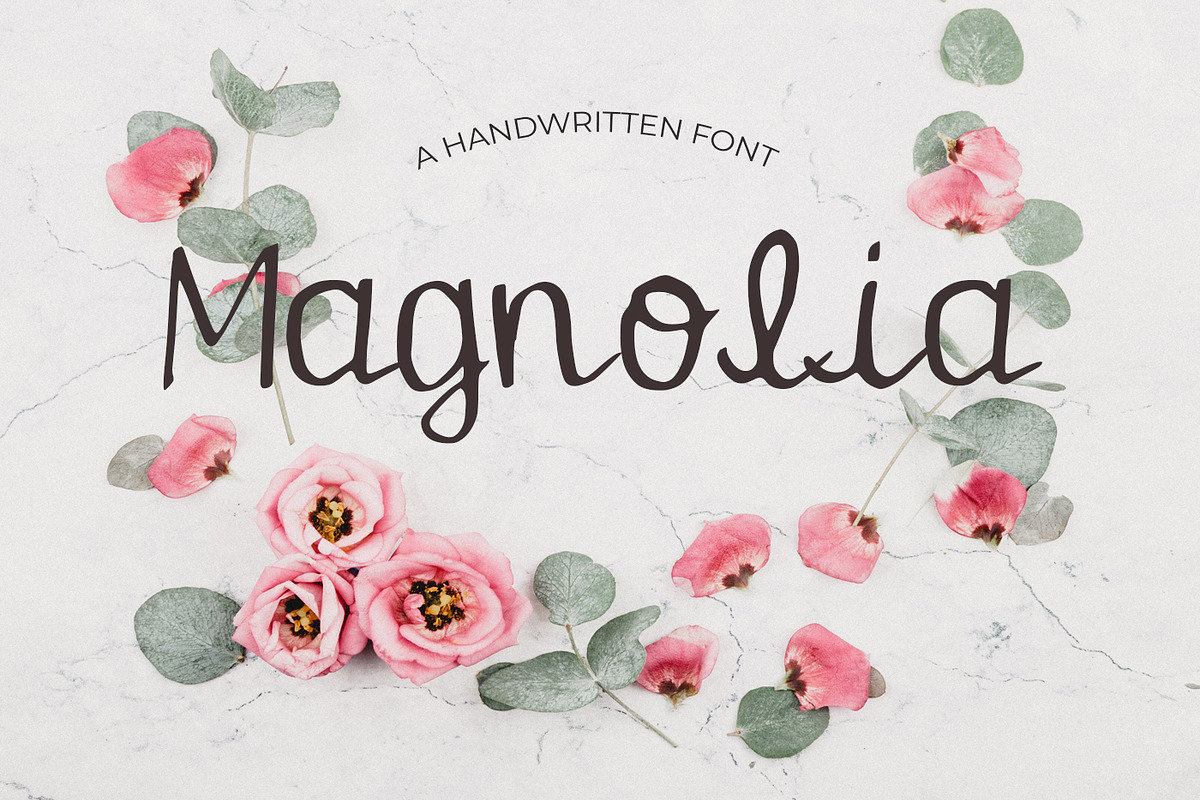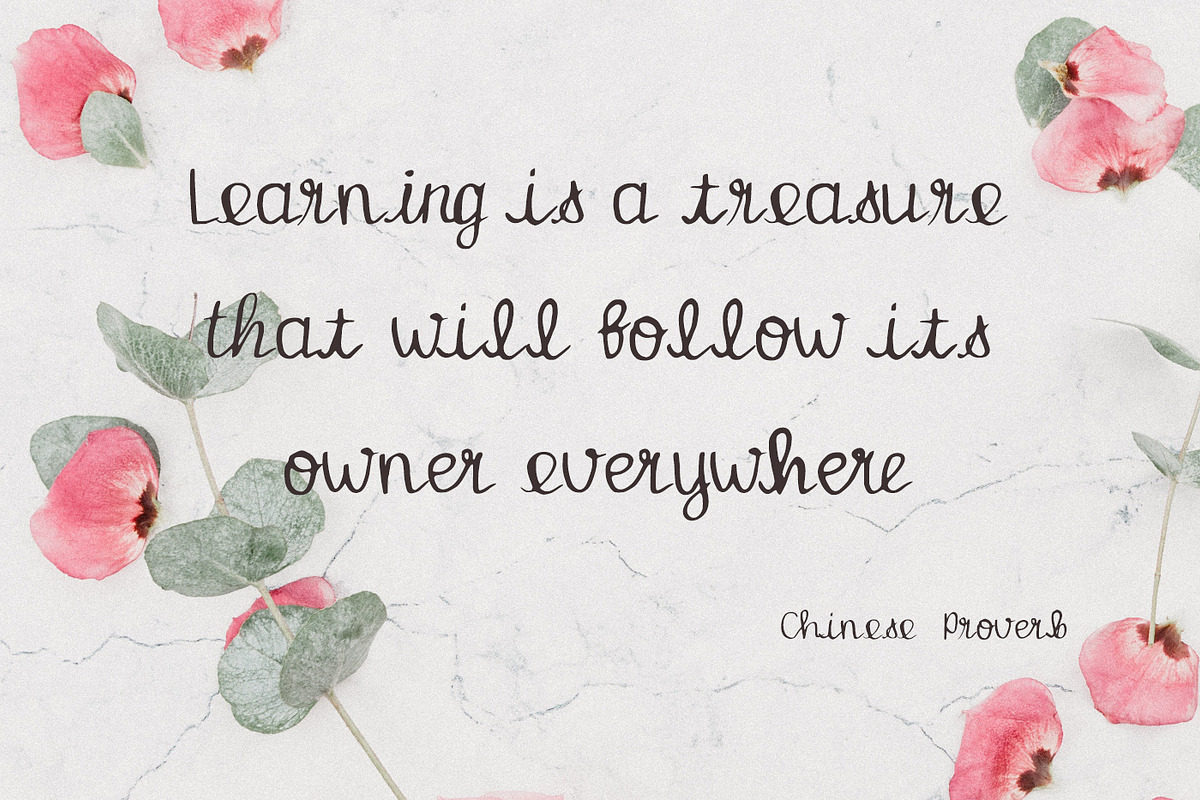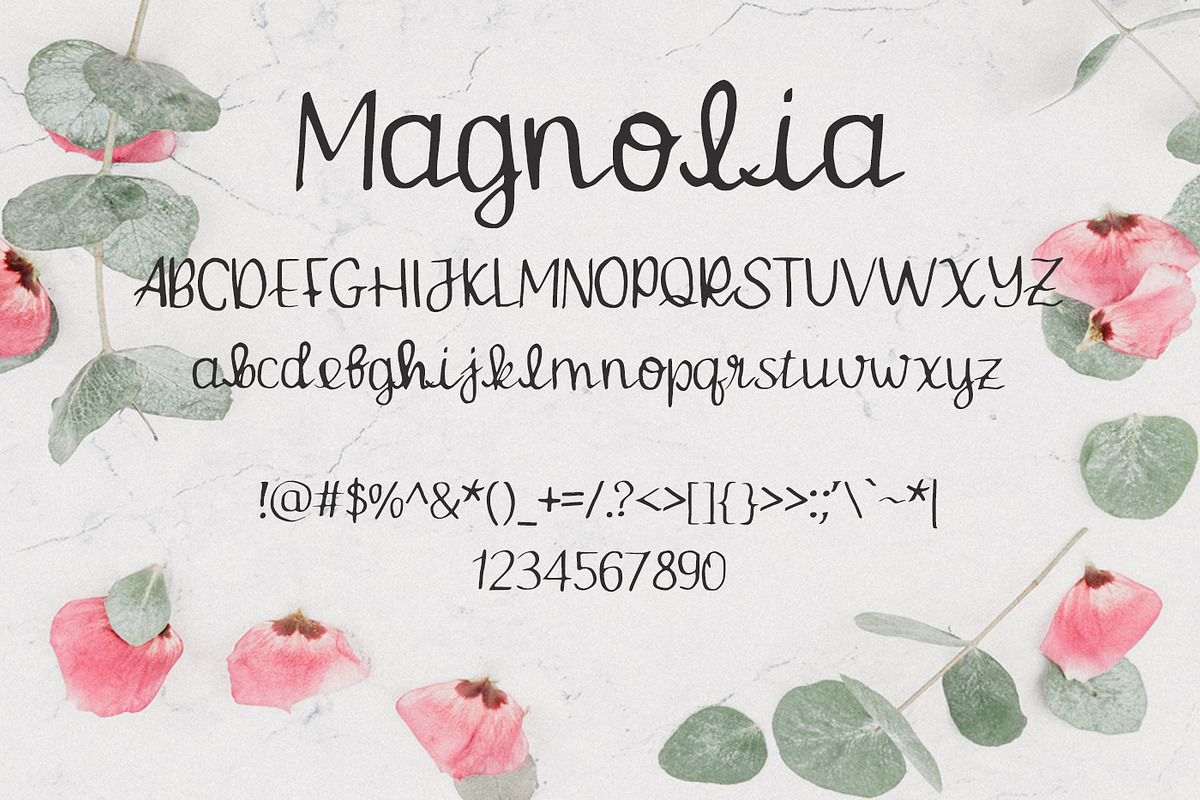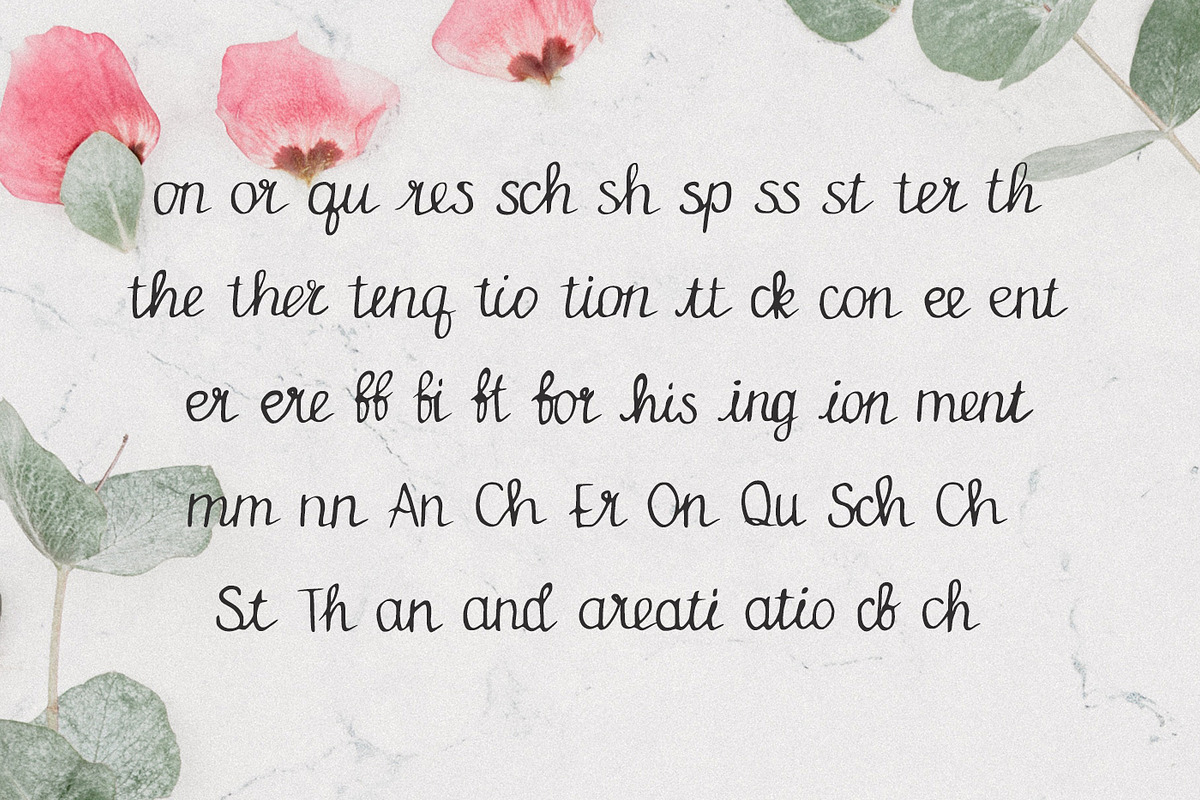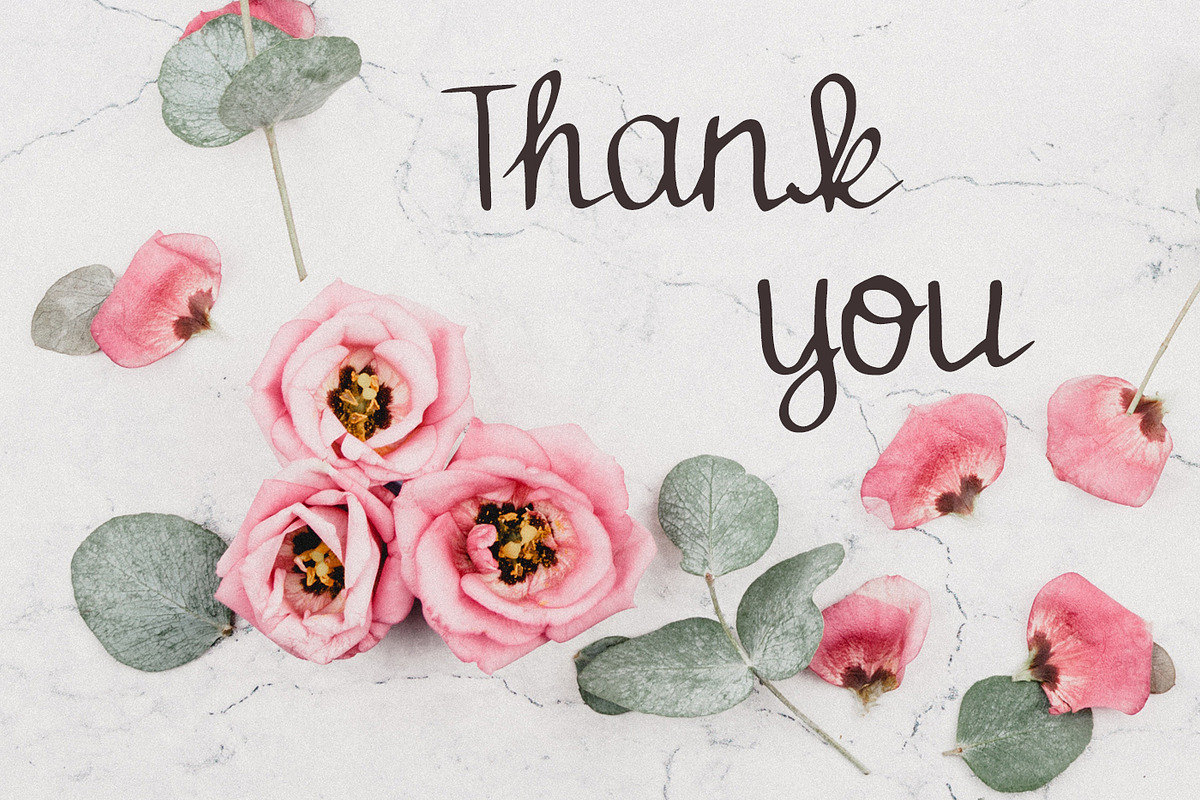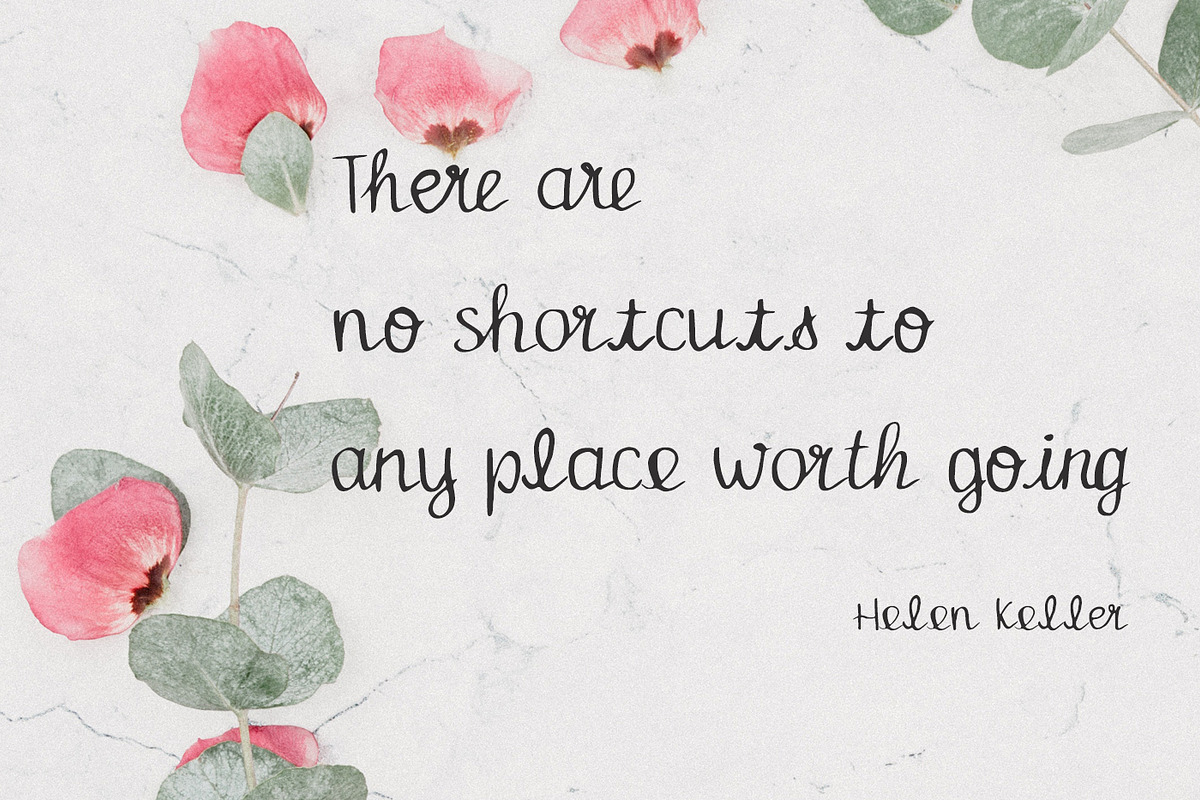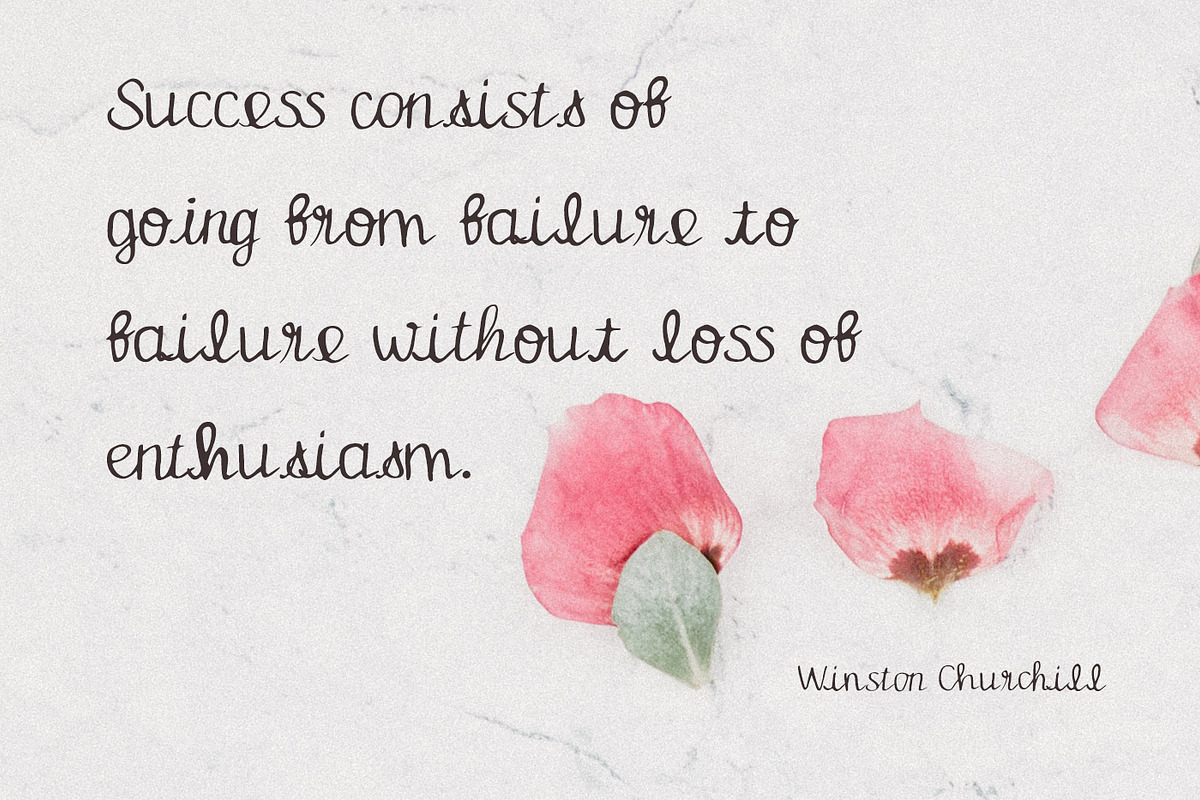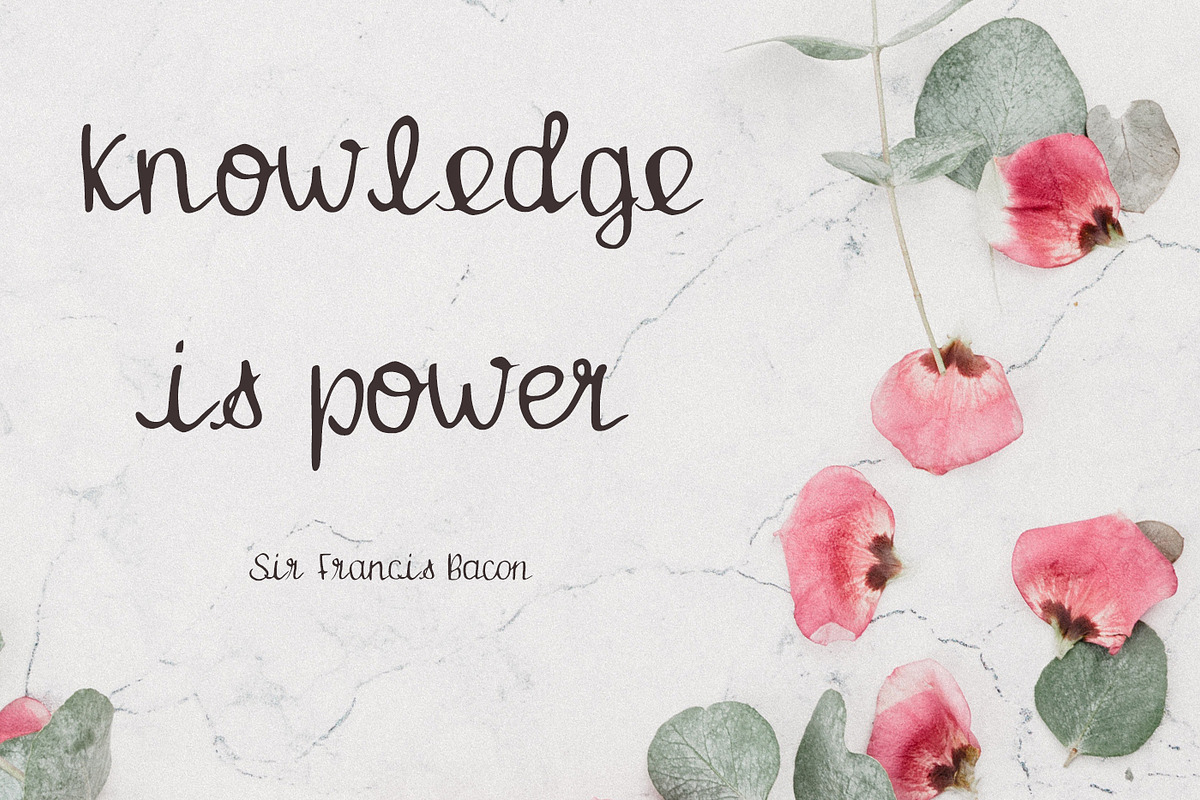
Magnolia Font
it's a wonderful font with a unique, detailed and handmade look. These fonts looks amazing in all caps with a wide-set spacing if you want to try a classy look, or beautiful on its own in capital and lowercase letters for something completely timeless. Perfect for gorgeous logos, displays, headers, invitations, save the dates, weddings, titles, web layouts and branding, etc.
- These fonts looks amazing in all caps with a wide-set spacing if you want to try a classy look, or beautiful on its own in capital and lower
Magnolia Font by Eldamar Studio fits naturally into Branding, posters, packaging, typography.